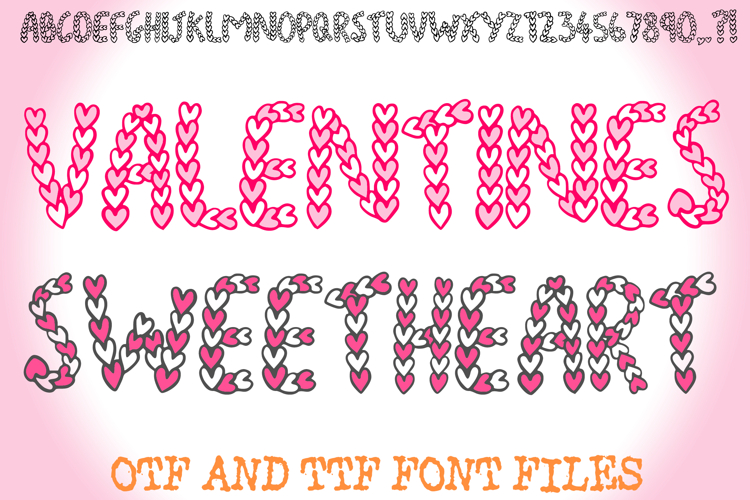
Valentines Sweetheart Font Love Heart Cute Typeface Letters
Fall head over heels for Valentines Sweetheart Font, the ultimate typeface for the season of romance! This one-of-a-kind display font is literally built from love, with every single letter stroke composed of small, interlocking hand-drawn hearts.
The design features cute hand drawn hearts giving your text a soft, whimsical, and highly decorative appearance. Whether you’re designing a centrepiece for a wedding or a sweet note for a friend, this font turns every word into a work of art.
Heart-Shaped Strokes: Every character is meticulously crafted from a string of tiny hearts, creating a unique textured effect.
Handmade Charm: Captures an authentic, "doodled" aesthetic that feels sincere.
Valentine’s Day Crafts: Perfect for romantic cards, "XOXO" banners, and custom gift wrap.
Wedding & Engagement: Create stunning "Save the Dates," bridal shower invitations, and wedding favors.
Sublimation & Digital Design: Ideal for T-shirts, mugs, and social media graphics that need a pop of love.
Scrapbooking: Add a decorative touch to your memory books and digital planners.